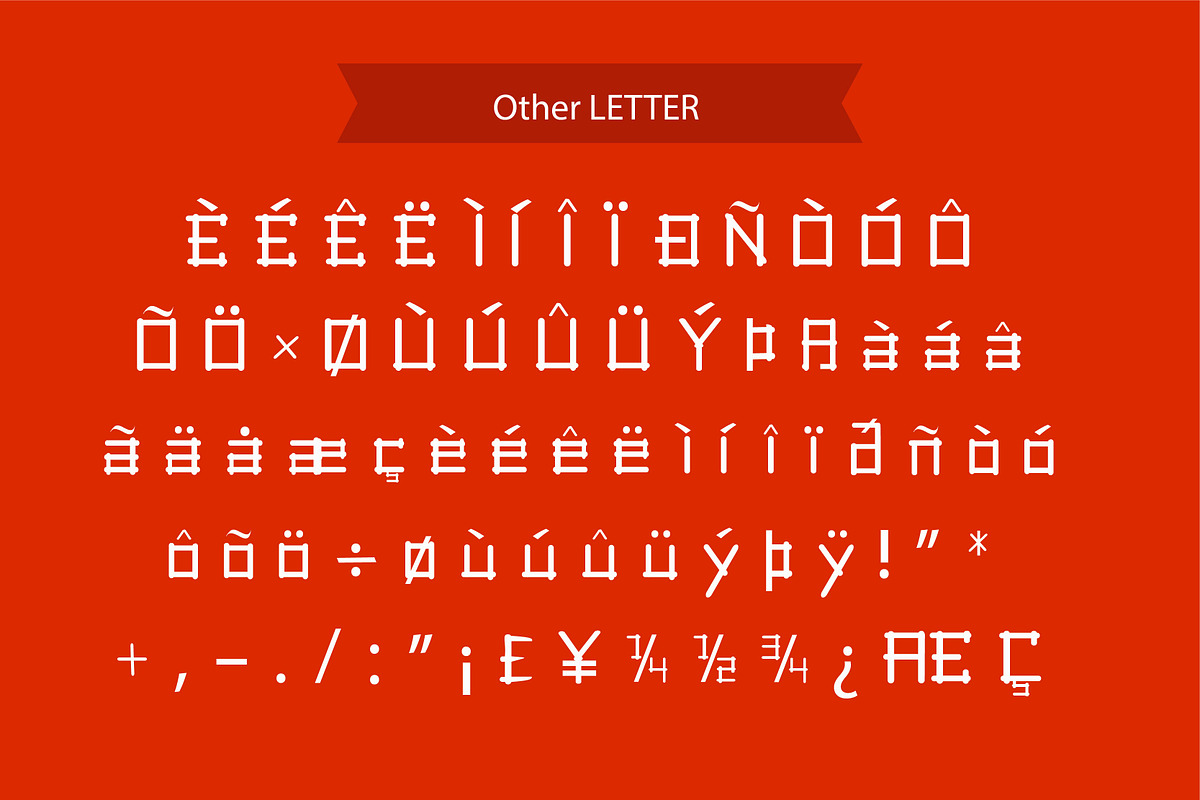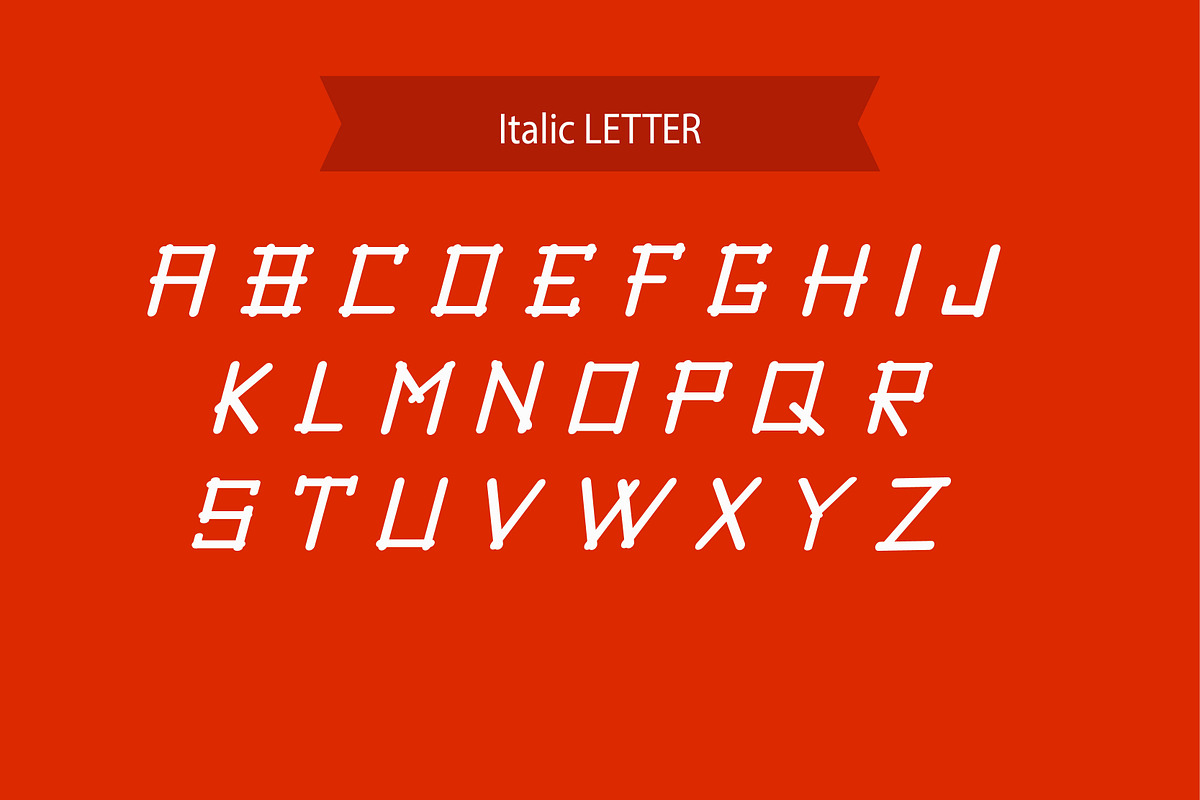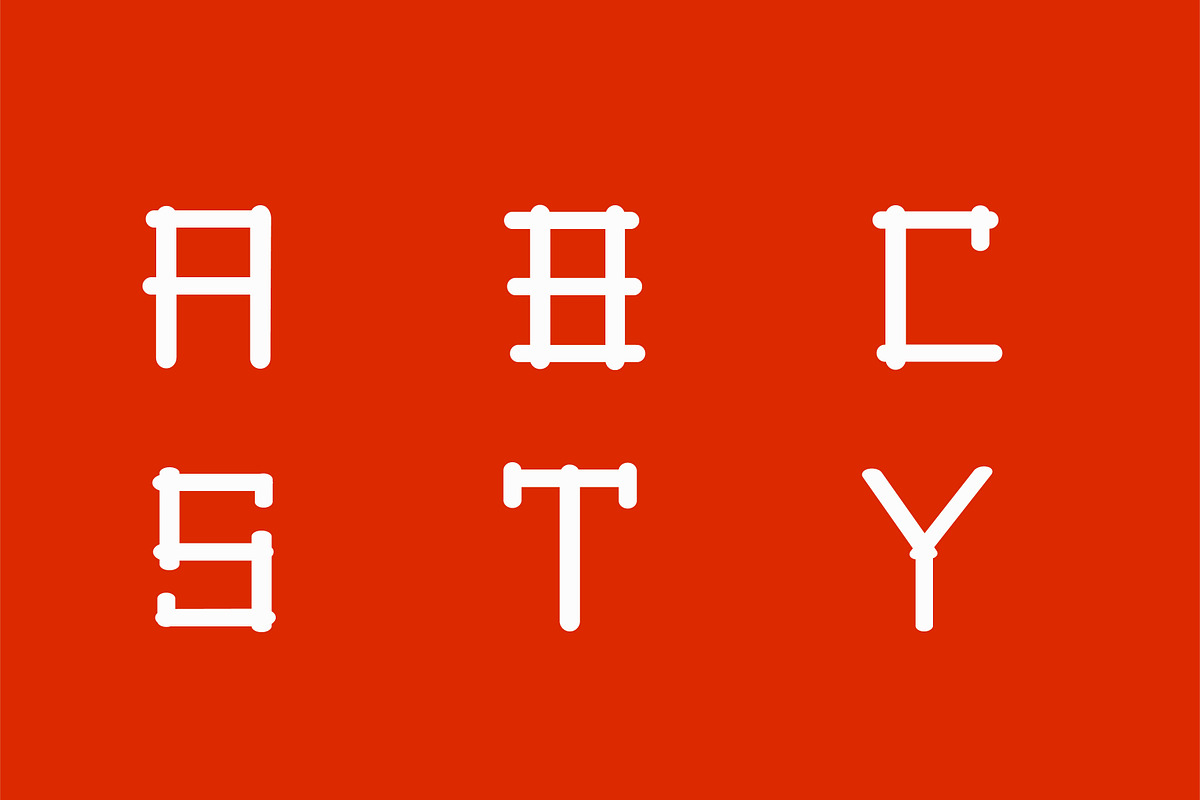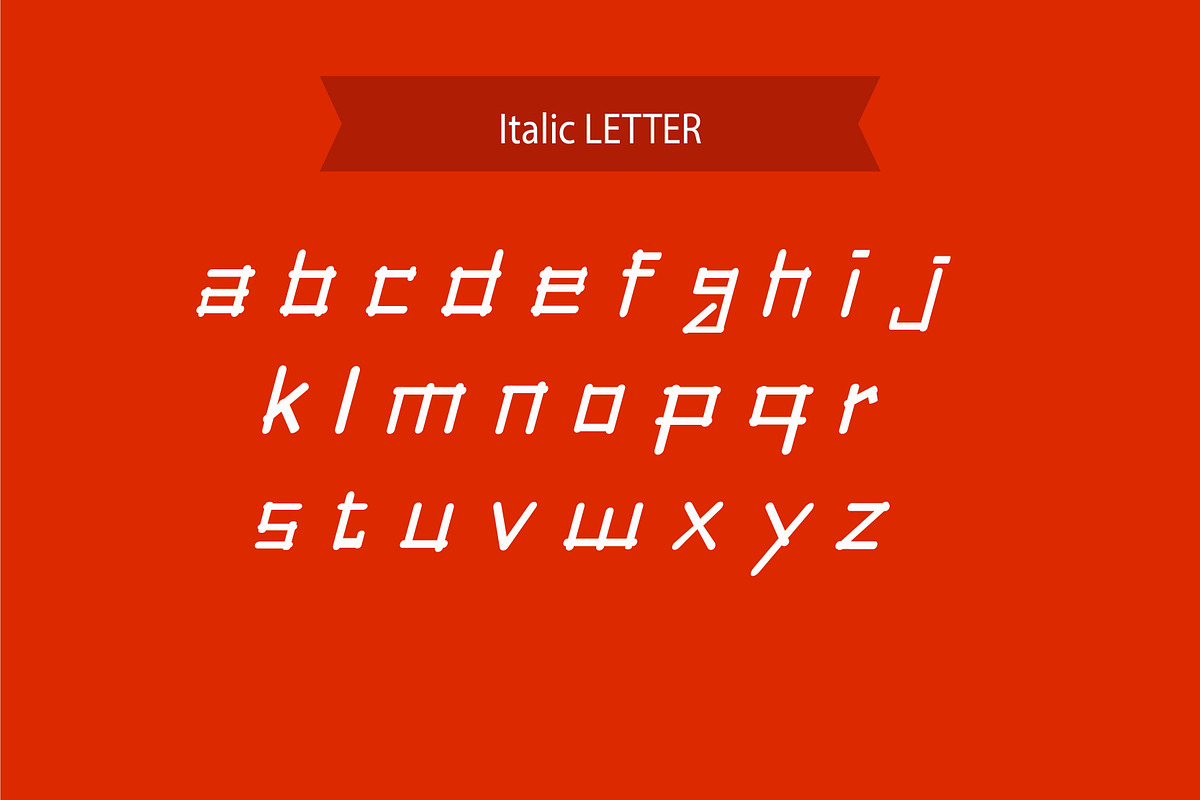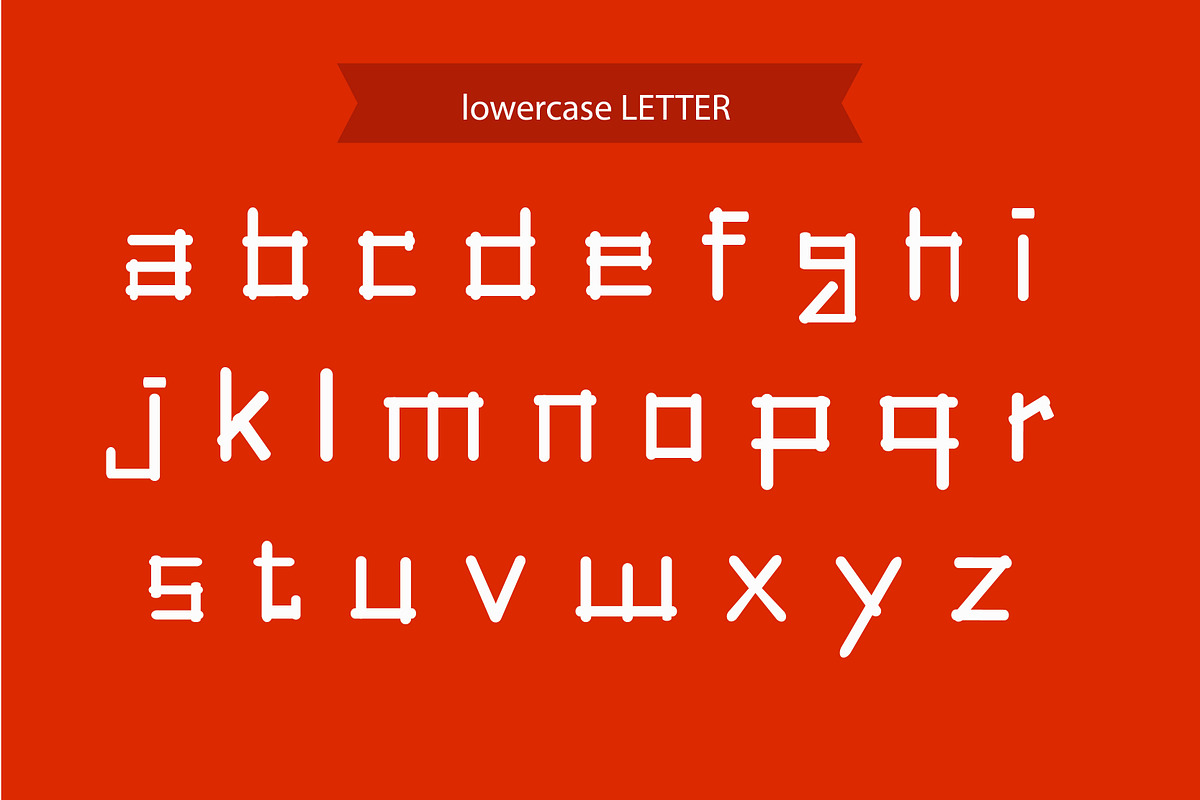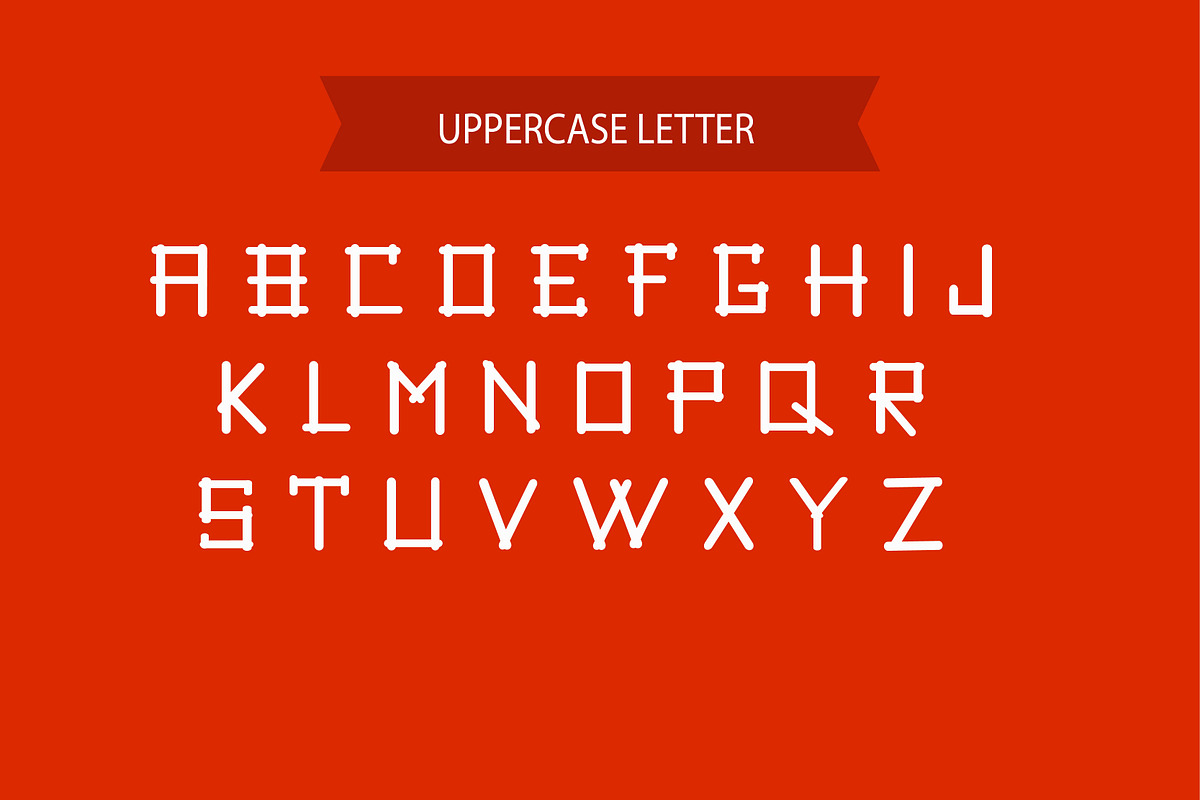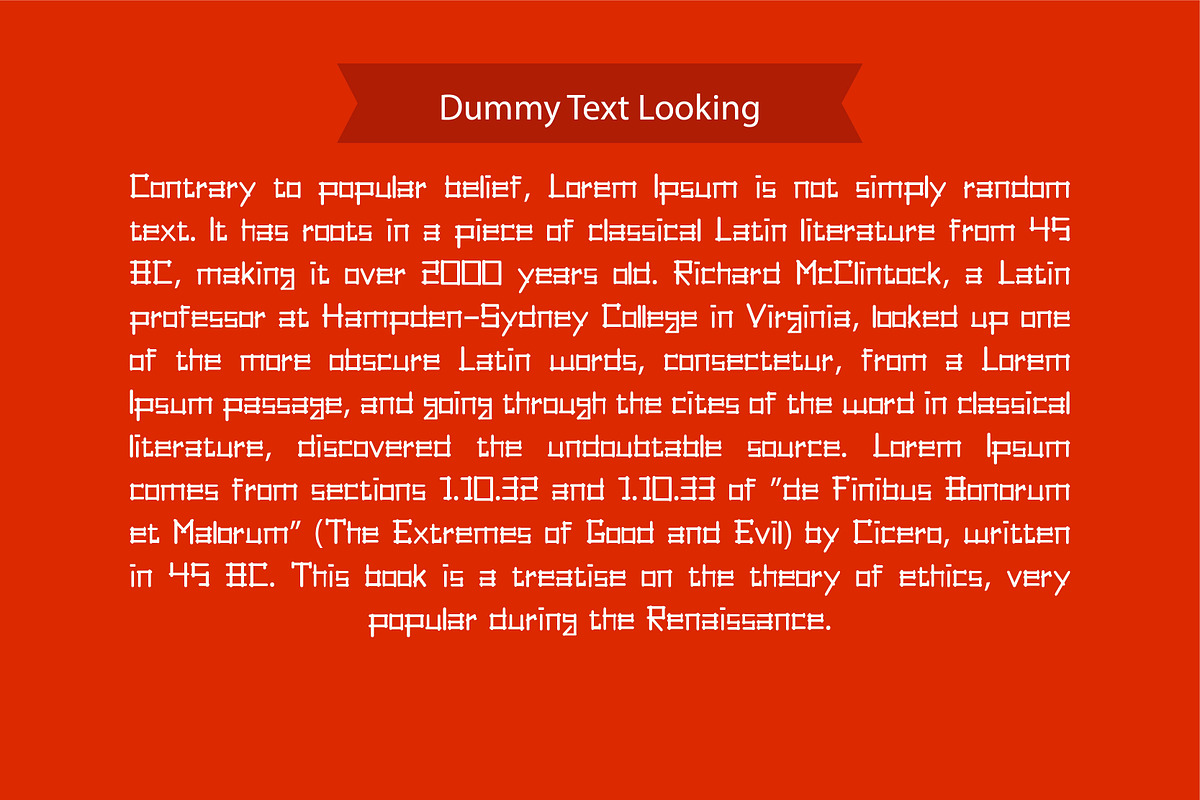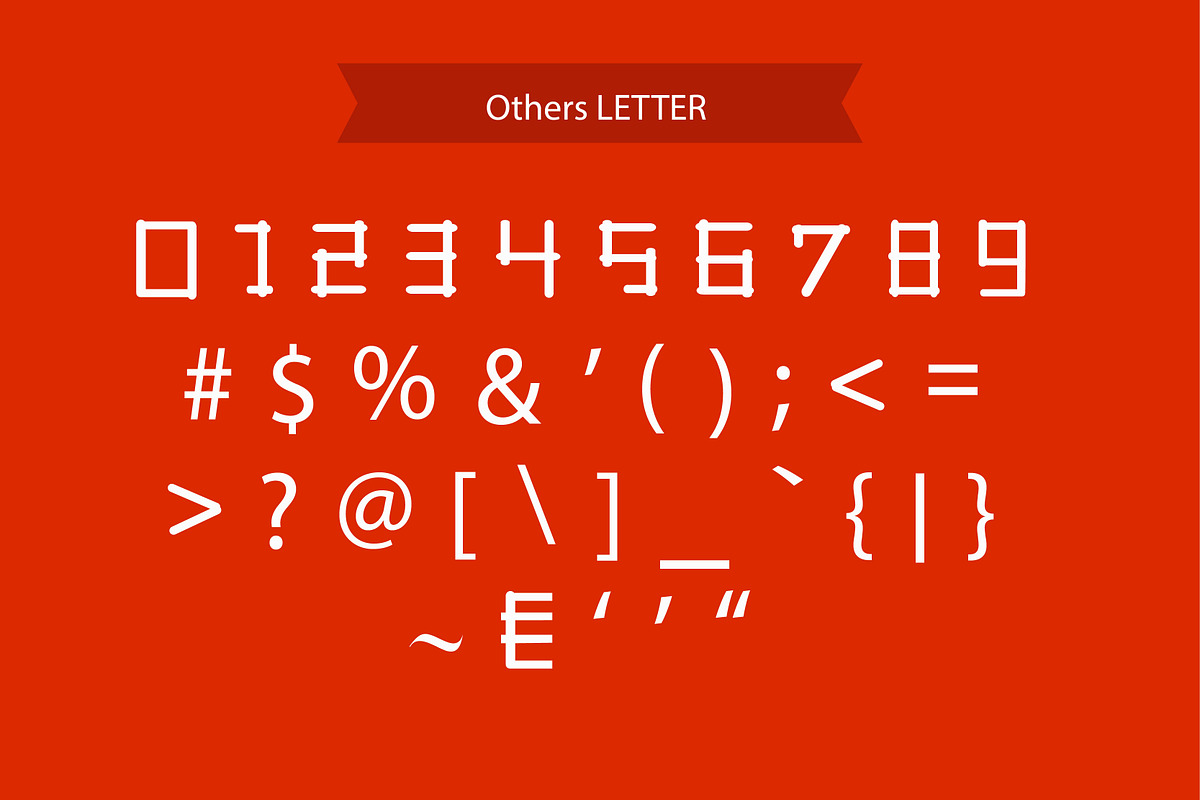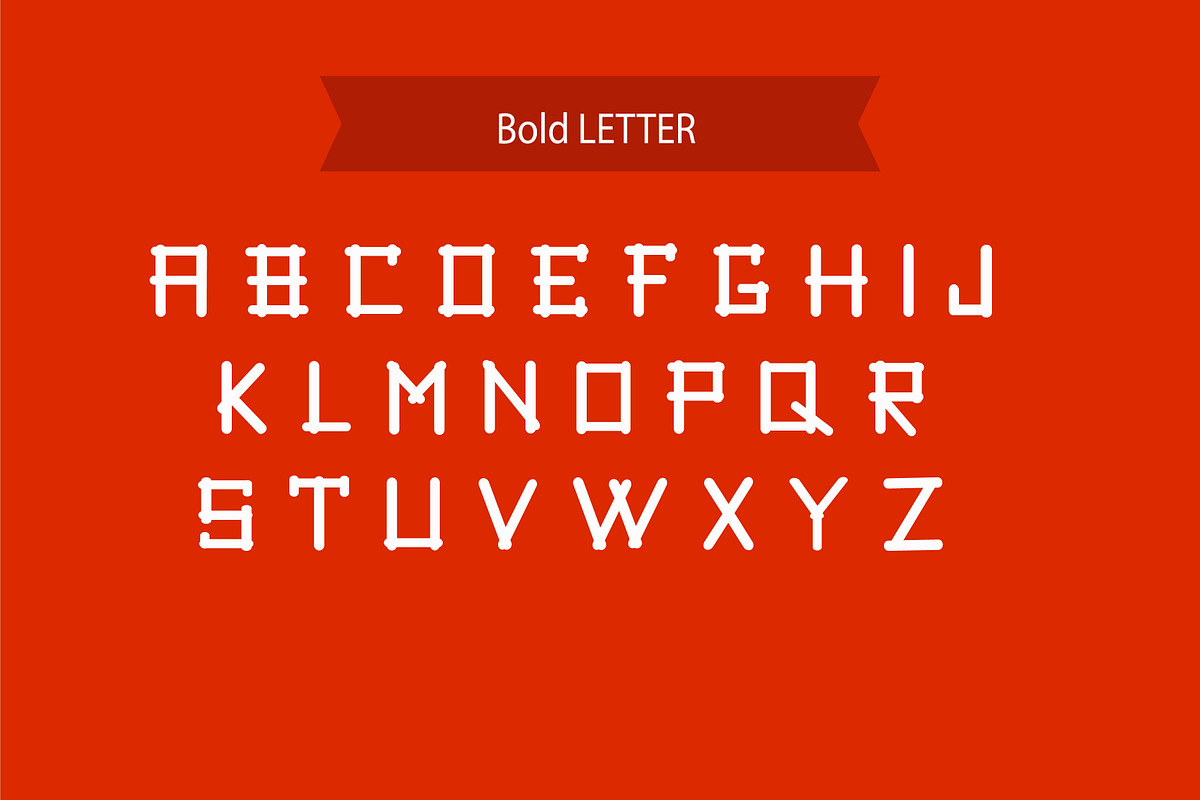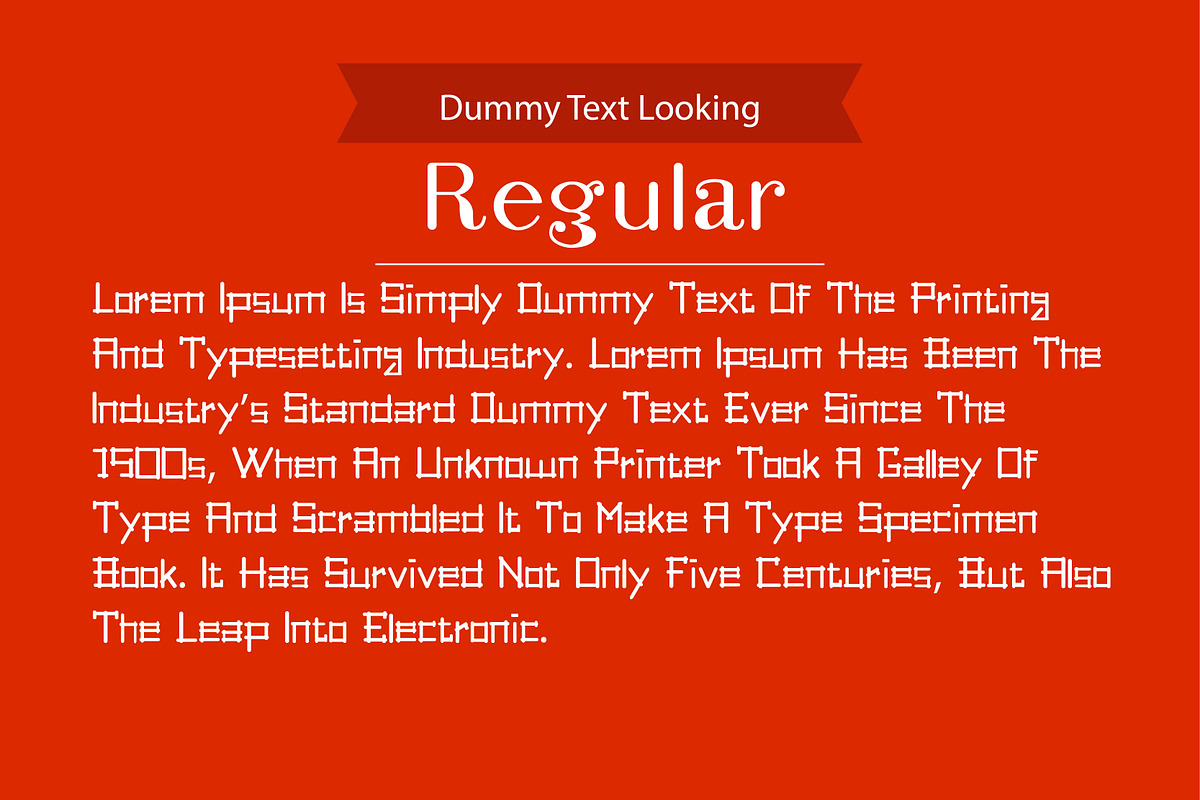
Pickup Stix
Pickup Stix Western lettering & Stylish Font. Available in Regular, Bold and Italic version with all special characters.
It’s useful for any Design project. card, e-card, Good for Logos & Headlines,Poster,Tag design, Newspaper & Magazine Ad Design, Billboard, Banner etc. True type and Open type font files